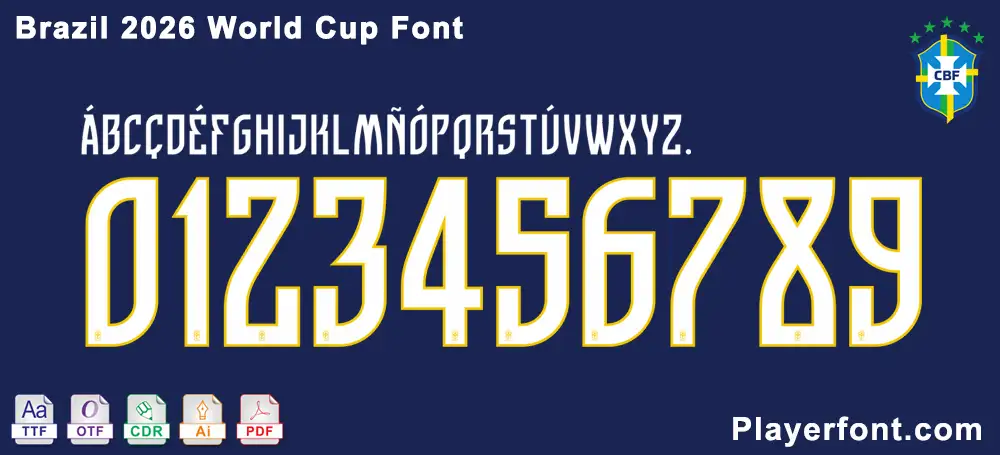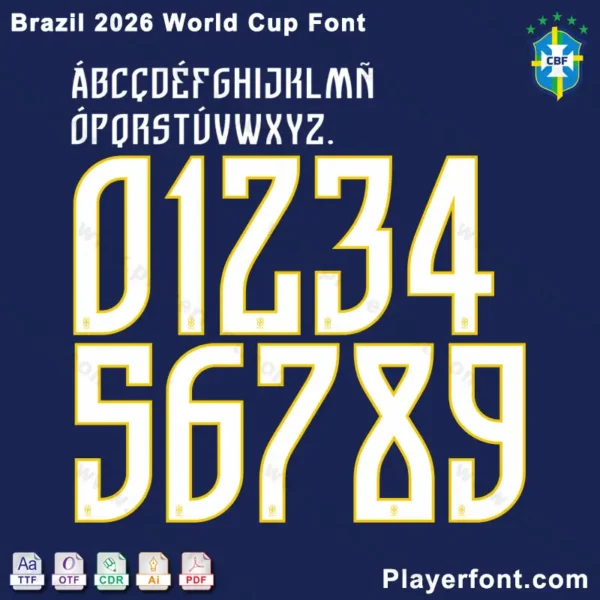
Get ready to celebrate the beautiful game with the Brazil 2026 World Cup Font Kit! Inspired by the rich football heritage of the Seleção and the excitement of the upcoming tournament hosted across North America, this comprehensive typeface is essential for any fan, designer, or craft business owner.
This font kit goes beyond standard characters, featuring full support for Portuguese diacritics and special symbols, ensuring authentic spelling of player names like “João” or “José.” The bold, athletic design captures the flair and passion of Brazilian football, making it perfect for a wide range of creative projects.
Whether you’re producing custom jerseys for your local futsal team, creating durable vinyl stickers for water bottles, or designing promotional materials for a World Cup viewing party, this versatile font kit delivers professional-grade results that scale perfectly from tiny decals to large banners.
Custom Apparel: Design authentic-looking t-shirts, hoodies, and replica jerseys using screen printing or heat transfer vinyl techniques.
Event Signage: Create professional banners, posters, and signs for your 2026 World Cup gatherings or sports bar promotions.
Special Character Support:
This font kit includes comprehensive language support with characters such as: À, Á, Â, Ã, Ä, Ç, É, Ê, Í, Ó, Ô, Õ, Ú, Ü, Ñ, and their lowercase equivalents to properly spell Portuguese and other Latin-based languages.